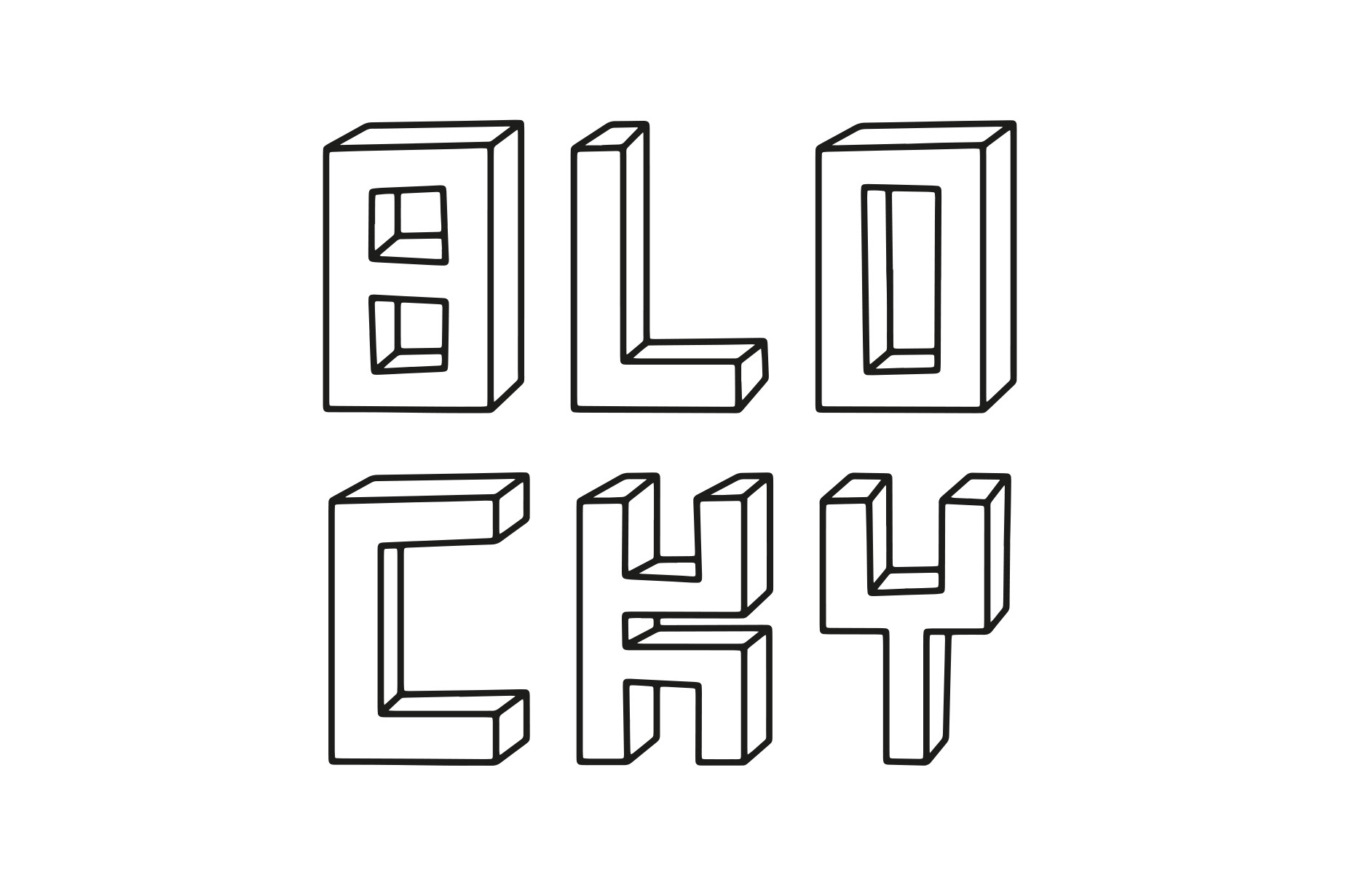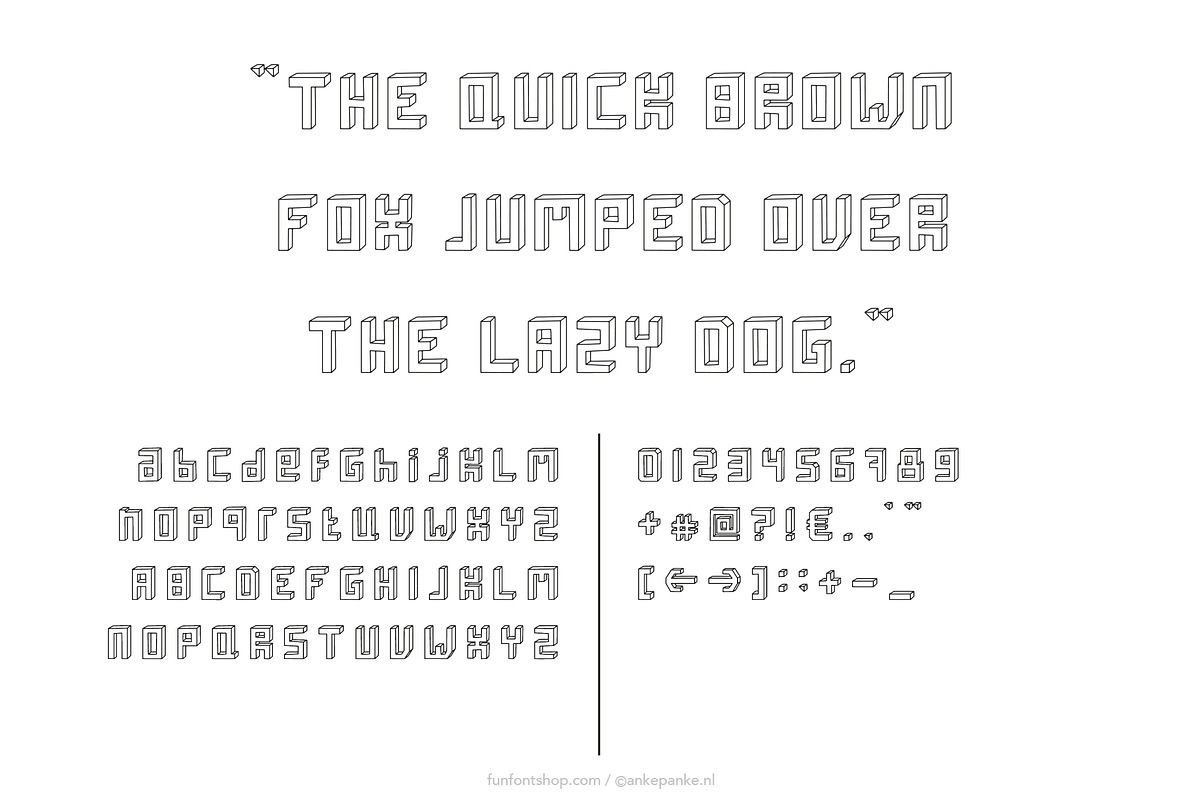
Blocky 3d Font
A playful 3D font, great for headlines and small texts. This font is created digitally, so big or small: it's always clean.
- Letters Uppercase, lowercase and numbers
- Punctuation +#@?!€,.:;’”[+]-_